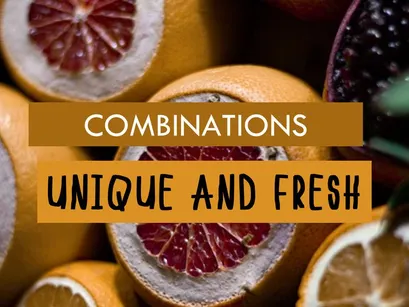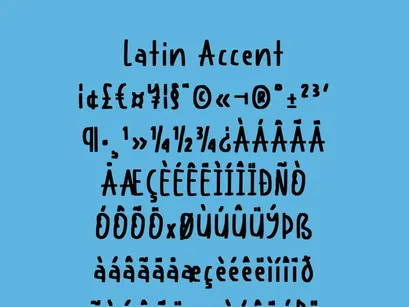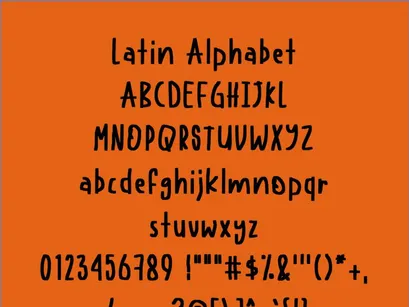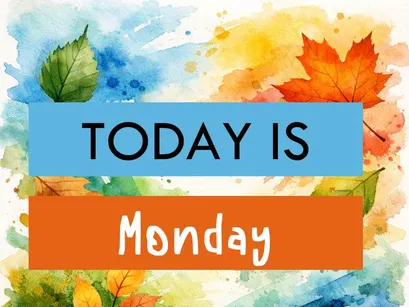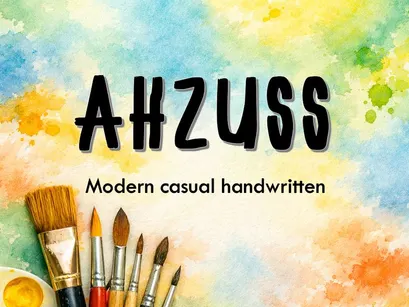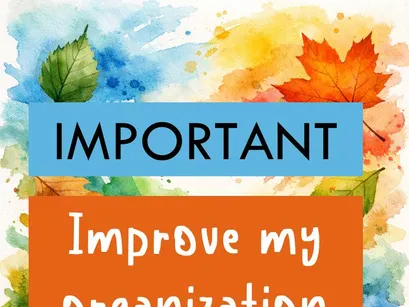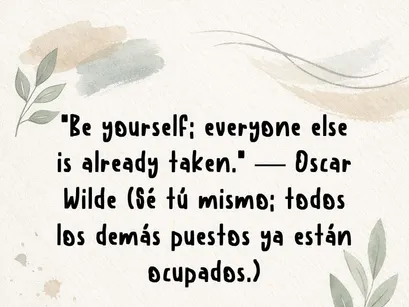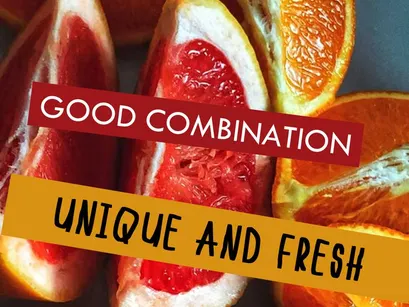
AHZUSS is a modern, casual font with a handcrafted style that blends natural appeal with distinct character.
Hand-drawn with bold, expressive strokes, it conveys authenticity and energy—perfect for creative projects seeking a warm, approachable voice.
Ideal for headlines, inspirational quotes, artistic branding, planners, packaging, and designs with personality.
Includes a full set of Latin characters, accents, and symbols for international compatibility.
Inspired by modern handwriting, AHZUSS adds a human, emotional touch to every composition.